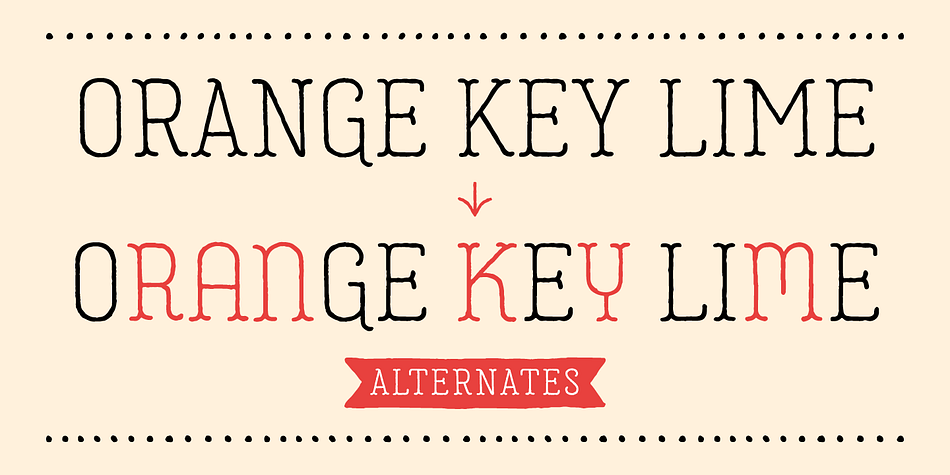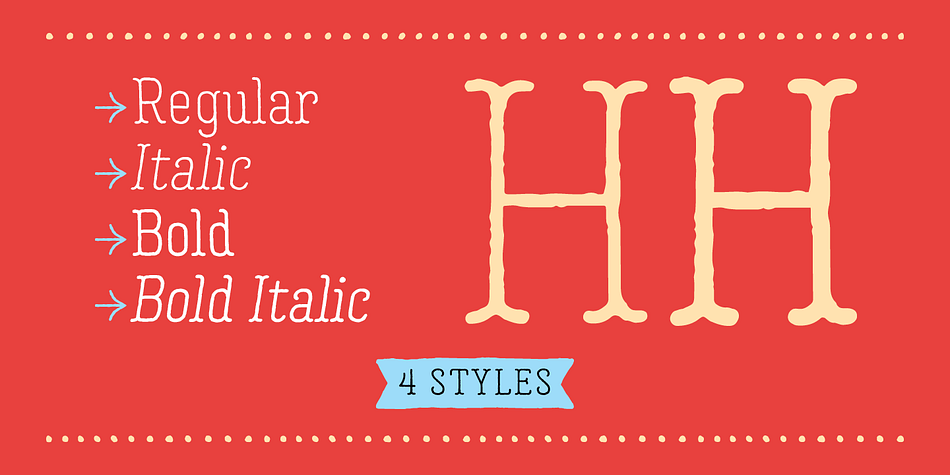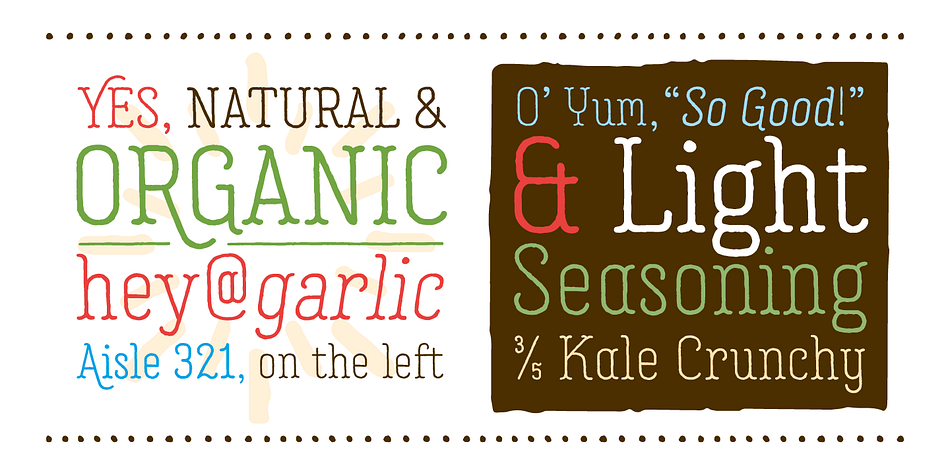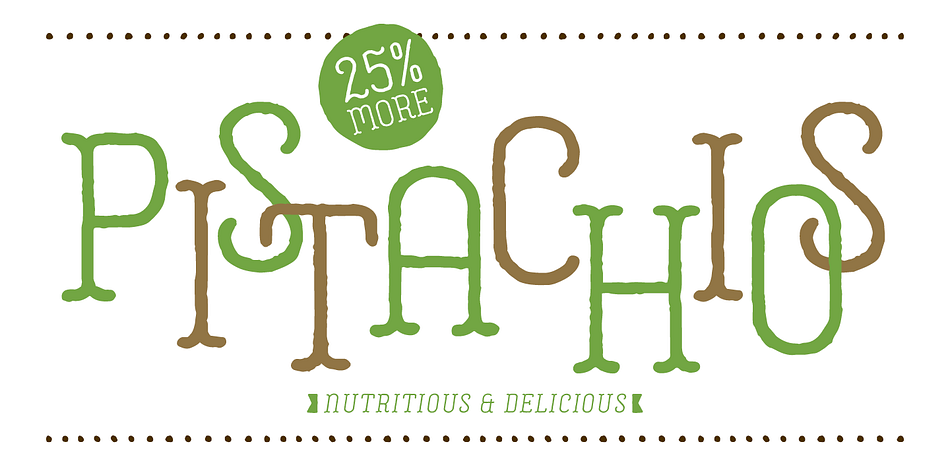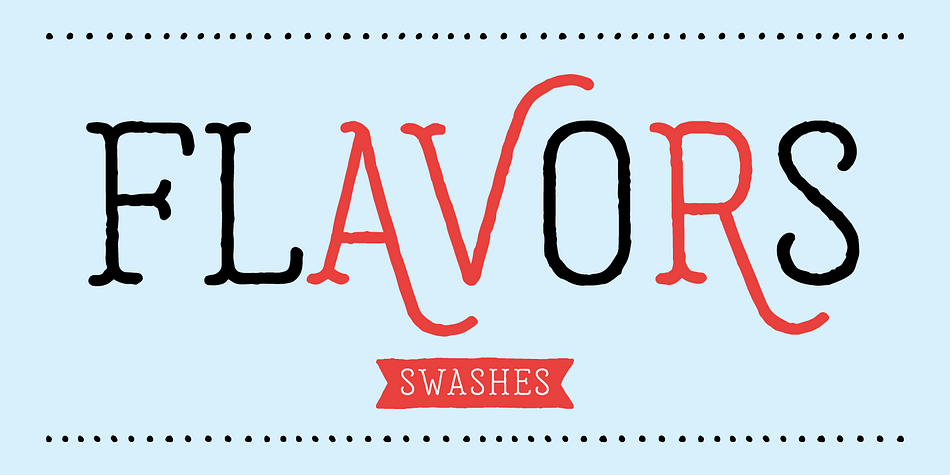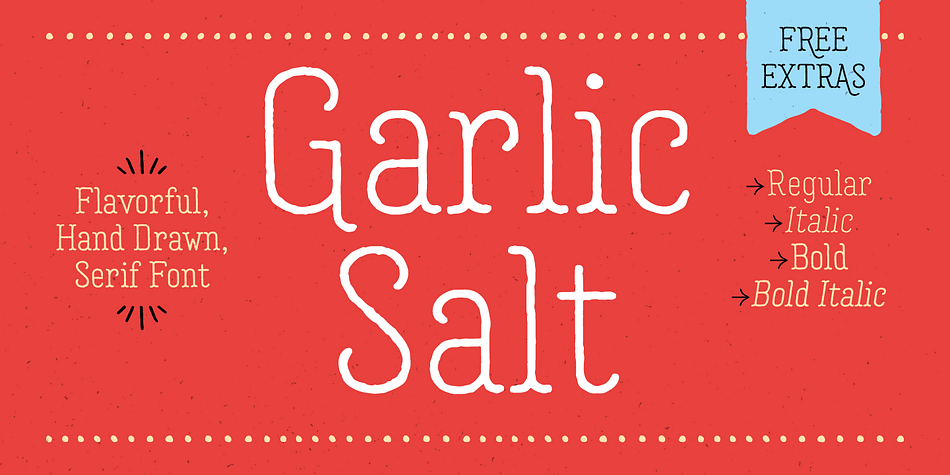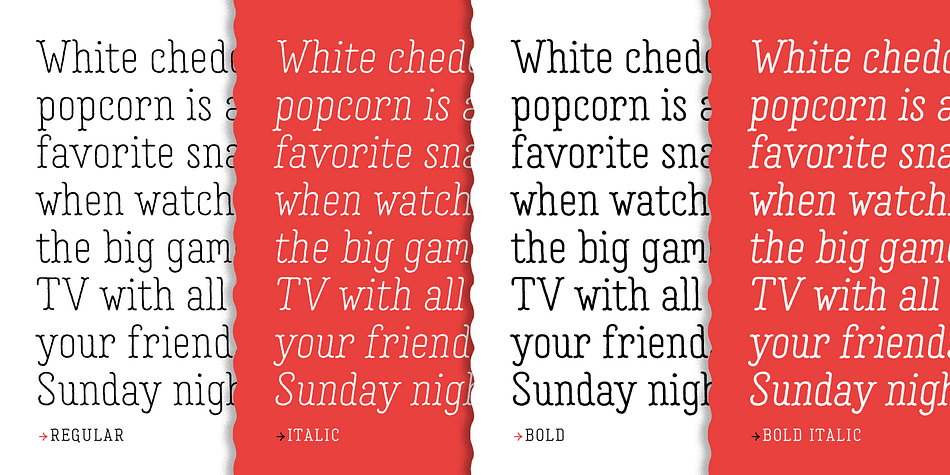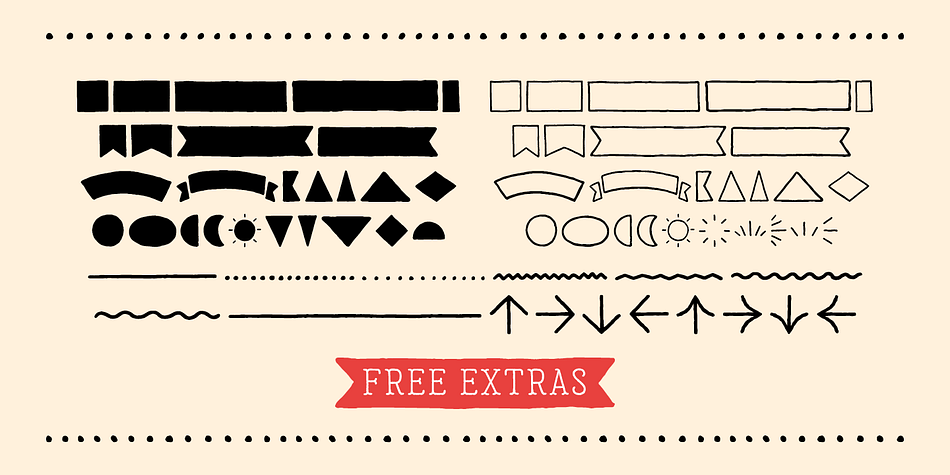
Designed by Adam Ladd, Garlic Salt is a dingbat, hand drawn and display serif font family. This typeface has five styles and was published by Adam Ladd.
Garlic Salt is a flavorful, hand drawn, serif font family. Drawn with a single marker pen, it has a monoline appearance giving it a distinct mix of whimsical and modern qualities. The semi-condensed propositions are sturdy and space-saving for your layouts.
Choose from either the regular weight or a slightly thicker line in the bold weight to suit your needs. It works great set large as a display font to show off the hand drawn texture, but it also is pleasantly readable set in smaller point sizes because of the carefully drawn letterforms.
BONUS: Garlic Salt also comes with a free Extras font of matching ornaments and dingbats to complement your designs!
Special features include stylistic alternates and swashes to enhance the type to your liking. Those glyphs are also PUA-encoded to make them accessible in software that is not OpenType-savvy. This font has extensive Latin language support.